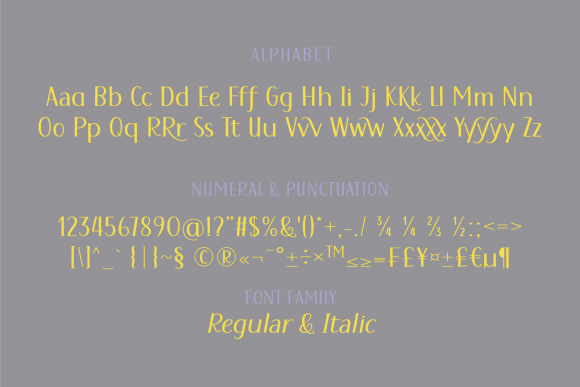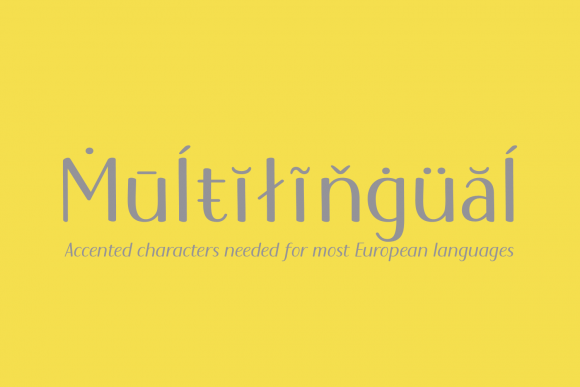
Kettya Font
db-ku.com - Script & Handwritten -- Kettya is a simple and cute handwritten font with a beautiful rhythm. This font includes an Italics version that makes it truly versatile and authentic to use.